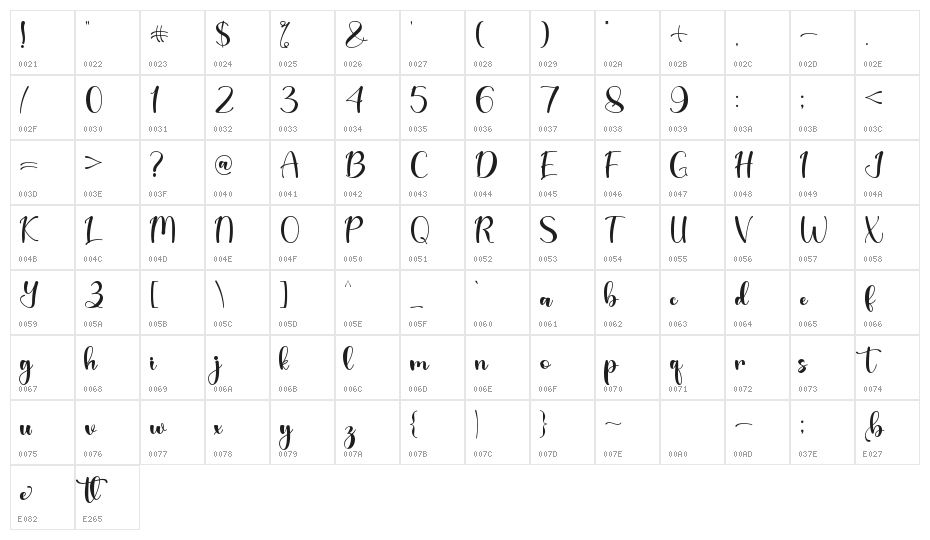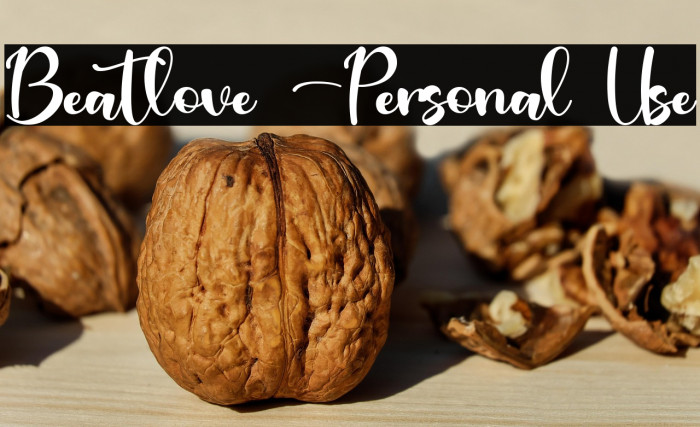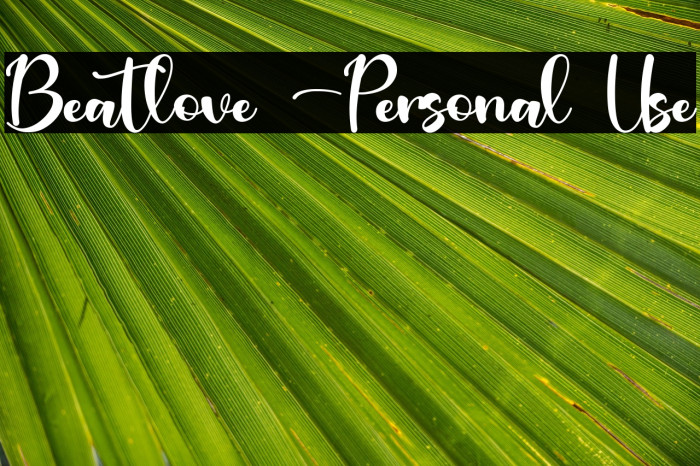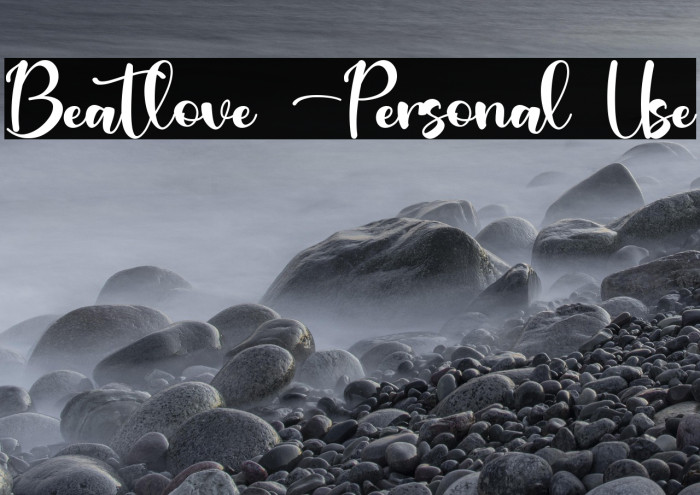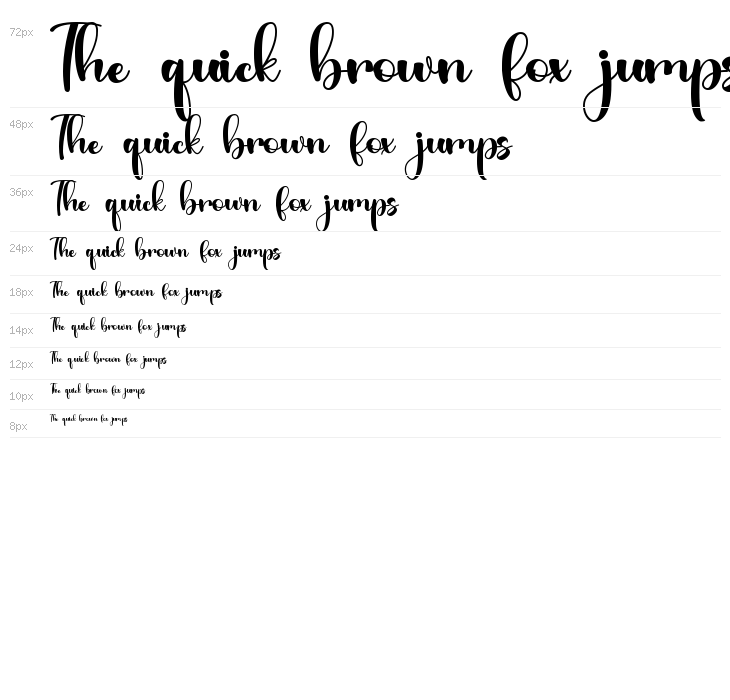
Beatlove -Personal Use Font
Beatlove -Personal Use Description
This font features a dynamic and flowing script style, characterized by its elegant and artistic curves. The uppercase letters are bold and sweeping, with a distinct flair that adds a touch of sophistication. The lowercase letters maintain a consistent rhythm, offering a harmonious blend of thick and thin strokes. Numbers and special characters are crafted with the same attention to detail, ensuring a cohesive look across all elements. The font's overall appearance is both playful and refined, making it versatile for various design projects.
| Use Case | Logos, Invitations, Headlines |
| Proposed Projects | Ideal for wedding invitations, branding, greeting cards, and elegant packaging designs. |